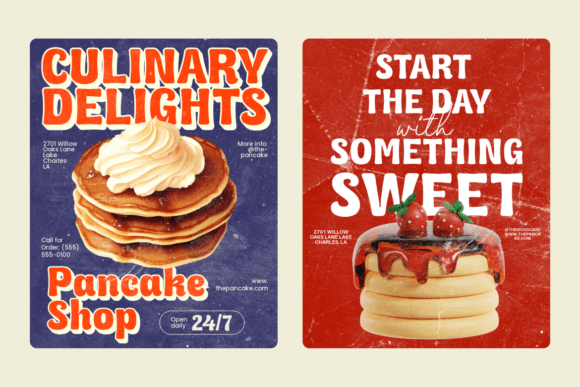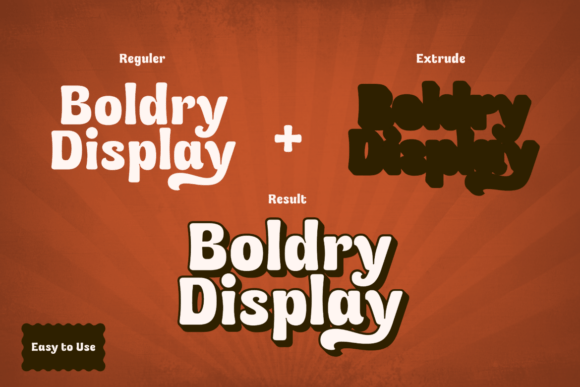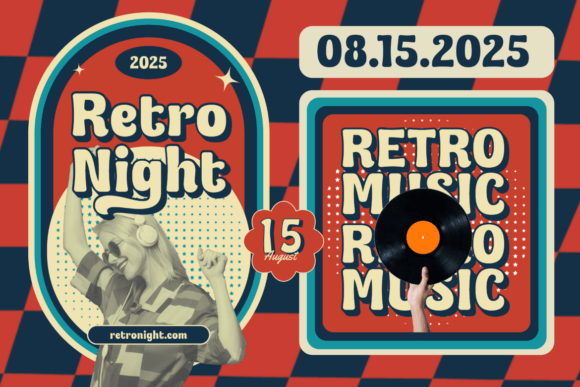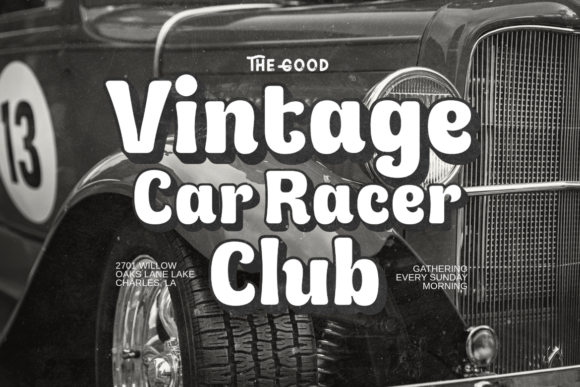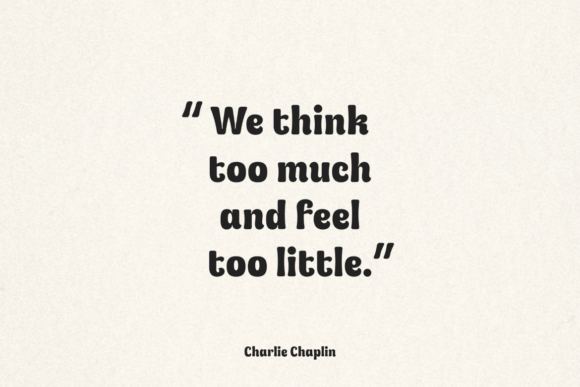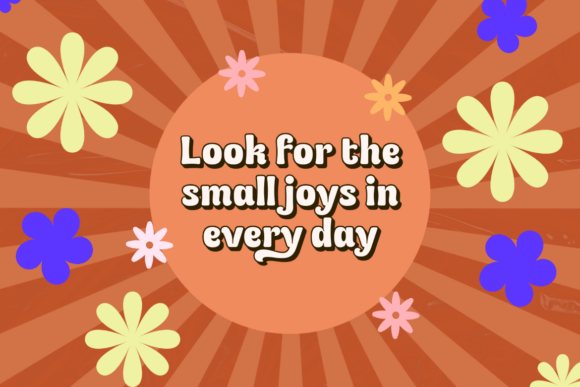
Discover the Charm of Boldry Display: A Bold Retro Typeface
I’ll never forget the time I was working on a vintage-inspired branding project for a client, and I just couldn’t seem to find the right font. The design needed to evoke a sense of nostalgia and timelessness, but everything I tried felt either too modern or too cliché. That’s when I stumbled upon Boldry Display, a bold retro typeface that instantly captured the fun, charm, and energy I was looking for.
With its thick, rounded letterforms and playful personality, Boldry Display was the perfect fit for my project. And as I explored its features and capabilities, I realized that it was more than just a pretty face – it was a versatile and powerful tool that could elevate any design.
An Honest Review of Boldry Display
- ✅ The bold, retro aesthetic that instantly adds a touch of nostalgia and charm to any design
- ✅ The thick, rounded letterforms that give the font its unique personality
- ✅ The extrude version, which adds an extra layer of depth and style to the font
- ✅ The wide range of OpenType features and glyphs that allow for endless customization
- ⚠️ Some users may find the font a bit too bold or overpowering for certain designs
- ⚠️ The extrude version can be a bit tricky to work with in certain software
The Story Behind Boldry Display
Boldry Display was designed by a team of creatives who wanted to capture the fun, charm, and energy of vintage design. Inspired by classic retro fonts and signage, they created a bold, rounded typeface that would evoke a sense of nostalgia and timelessness. The extrude version was added to give the font an extra layer of depth and style.
| What is Boldry Display best suited for? | Boldry Display is ideal for projects that aim to feel both nostalgic and timeless, such as logos, posters, packaging, headlines, and branding. |